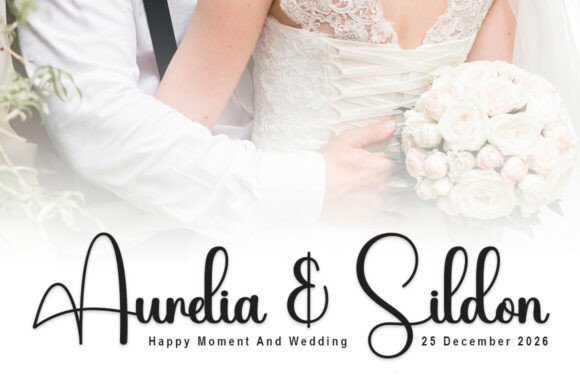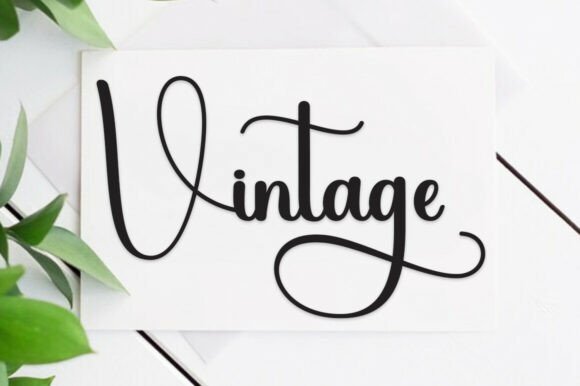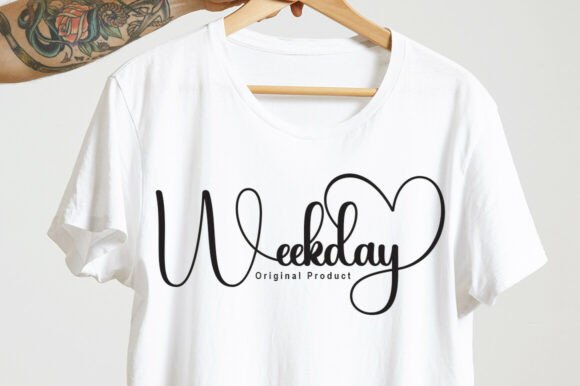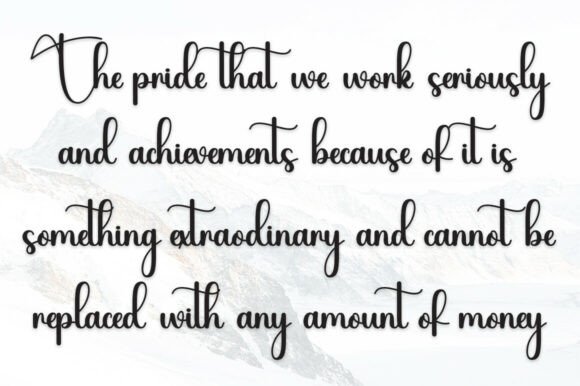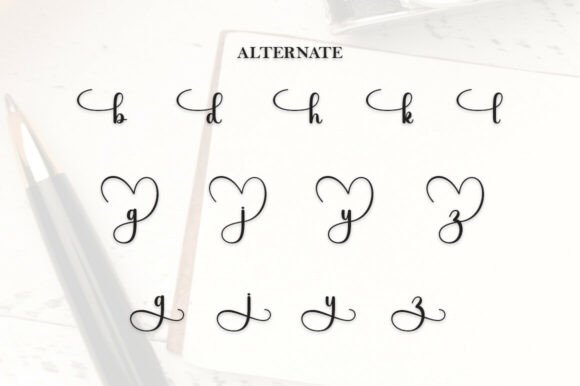
Discovering the Magic of Autography Font
There’s something special about holding a handwritten note from a loved one – the way the words seem to dance across the page, the imperfections that make it feel truly personal. It’s moments like these that remind us of the beauty of handwritten communication, and the impact it can have on our emotions. Whether it’s a heartfelt letter or a simple “thank you” note, a handwritten touch can make all the difference.
That’s why designers love the Autography Font – a sweet and friendly handwritten font that adds a touch of warmth and personality to any design. Perfect for writing wedding invitations, cards, or any other design that needs a lovely touch, Autography Font is a valuable asset for creatives looking to add a human element to their work.
With its relaxed and fun vibe, Autography Font is a must-have for designers who want to bring a personal touch to their designs. Its versatility and charm make it a great choice for a wide range of projects, from invitations to greeting cards and more.
Autography Font Key Features
- Font Family: Autography is a script font family designed for creating handwritten, elegant, and artistic text.
- Size: Autography Font comes in multiple weights, ranging from 400 to 900, offering flexibility for various design needs.
- Unique Characteristics: Autography Font features a unique blend of modern and vintage elements, with intricate details and subtle flair, perfect for creating eye-catching headlines and titles.
Autography Font Review
Overall, I think Autography Font is a decent addition to any designer’s toolkit. It works well in certain situations ✨.
Pros:
- Unique, handwritten feel that can add a personal touch to designs
- Versatile, suitable for a wide range of applications, from invitations to logos
- Highly customizable, with options for adjusting letter spacing and size
However, there are some limitations to consider ⚠️.
Cons:
- May be difficult to read at smaller font sizes, particularly in body text
- Lacks a consistent weight system, which can make it challenging to create hierarchies
- May not be suitable for formal or professional applications, due to its informal feel
Overall, I would give Autography Font 3.5 out of 5 stars. While it has its limitations, it can be a great choice for designers looking to add a personal touch to their work. With careful consideration and adjustment, Autography Font can be a valuable addition to any design arsenal.
Tips for Getting the Most Out of Autography Font
Use Autography Font to create a personal and handwritten touch in your designs.
Experiment with different font sizes, colors, and styles to achieve the desired effect.
Combine Autography Font with other design elements to create a unique and eye-catching visual identity.
Use Autography Font for:
Personalized greeting cards and gift tags
Marketing materials and social media graphics
Alternatives to Autography Font for Designers
Abril Fatface is a high-end, elegant script font perfect for adding a touch of sophistication to luxury branding and advertising materials. Its intricate details and ornate flair make it ideal for creating a sense of opulence and refinement.
Compared to Autography Font, Abril Fatface has a more dramatic and luxurious feel, making it suitable for high-end clients and projects. However, it may not be as versatile or suitable for everyday use.
Carolyna Pro is a modern, elegant script font designed for use in luxury branding, fashion, and high-end advertising. Its fluid lines and sophisticated feel make it perfect for creating a sense of sophistication and refinement.